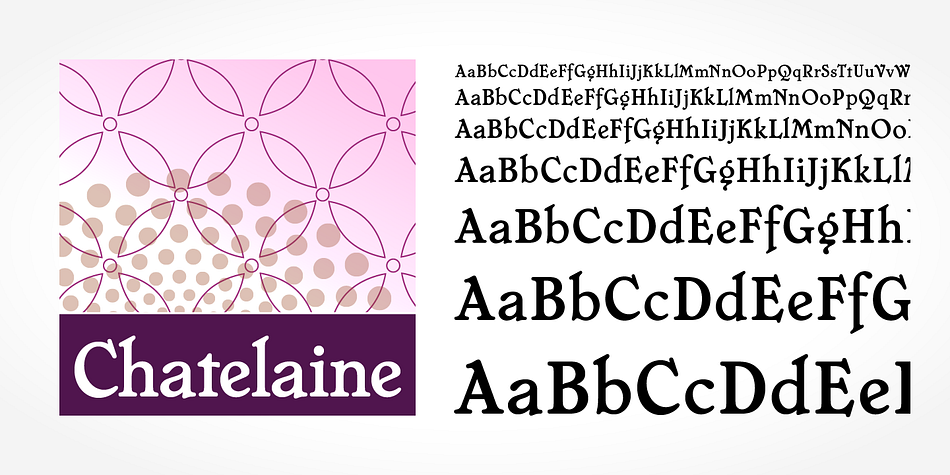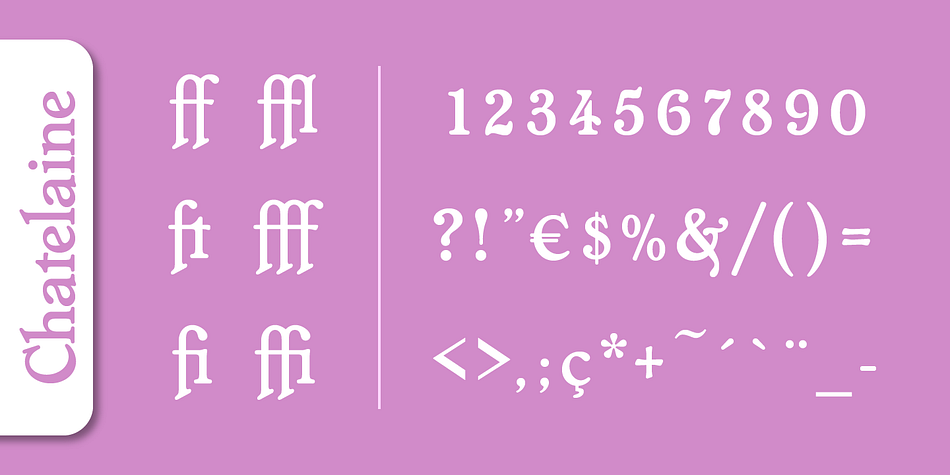
Chatelaine Pro
Chatelaine Pro is a serif font published by SoftMaker.
Chatelaine Pro is a display typeface, and should not be used in sizes below 12 points. This typeface would be a great fit for newsletter headlines or signs for country stores.